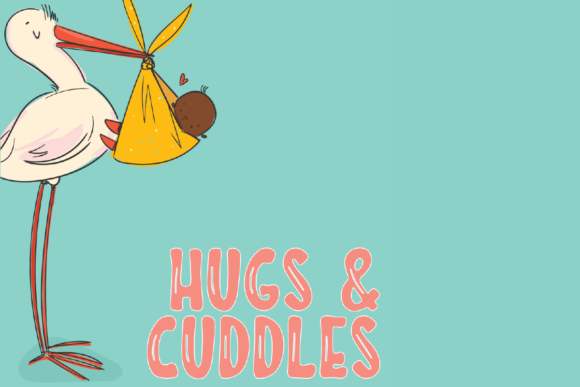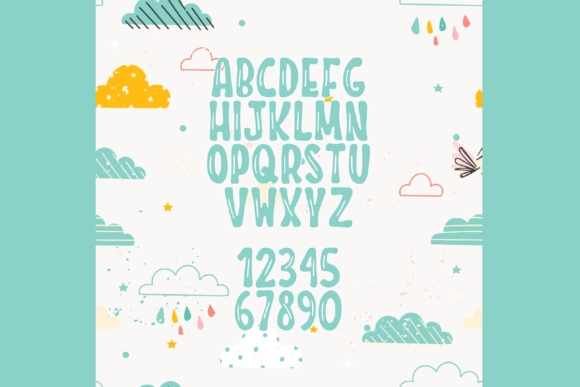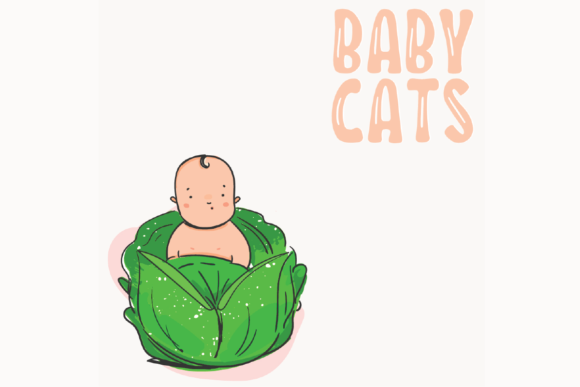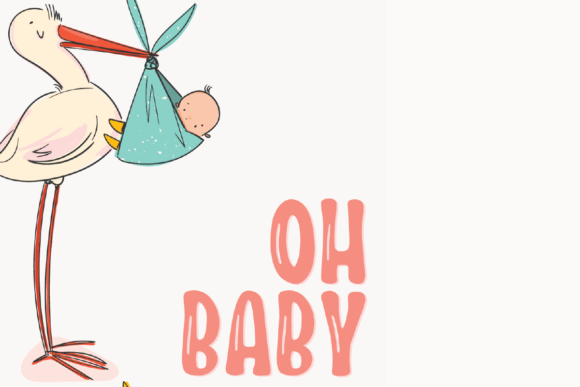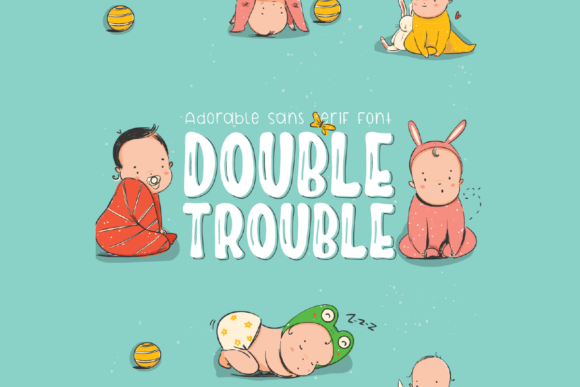
Introducing Double Trouble Font: The Ultimate Choice for Playful Designs
Are you tired of using the same old fonts for your designs? Look no further! Double Trouble Font is here to add a touch of playfulness and fun to your creations. This cool and playful display font is perfect for cartoon-related designs, children’s games, and any project that requires a lovely touch.
What Makes Double Trouble Font So Special?
Double Trouble Font is a unique and eye-catching font that is sure to grab attention. Its playful and fun design makes it perfect for a variety of projects, from children’s books to game designs, and even social media graphics. The font’s distinctive style is characterized by its bold lines, rounded edges, and whimsical feel.
Perfect for Cartoon-Related Designs
If you’re working on a cartoon-related project, Double Trouble Font is an excellent choice. The font’s playful and fun design perfectly captures the spirit of cartoons, making it ideal for:
- Cartoon character designs
- Animated movies and TV shows
- Comic books and graphic novels
- Cartoon-style posters and flyers
Great for Children’s Games and Activities
Double Trouble Font is also perfect for children’s games and activities. The font’s fun and playful design will appeal to kids and make your project stand out. Use it for:
- Children’s book titles and headings
- Game titles and instructions
- Activity sheets and worksheets
- Kids’ party invitations and decorations
Adding a Lovely Touch to Your Designs
Double Trouble Font is not just limited to cartoon-related designs and children’s games. The font’s playful and fun design can add a lovely touch to any project, including:
- Blog headings and titles
- Website headers and footers
Key Features of Double Trouble Font
Here are some key features of Double Trouble Font:
- Playful and fun design
- Bold lines and rounded edges
- Whimsical feel
- Perfect for cartoon-related designs and children’s games
- Great for adding a lovely touch to any project
- Use it as a display font for headings and titles
- Pair it with other fonts for a unique look
- Experiment with different colors and textures
- Use it to add a playful touch to your designs
Double Trouble Font is a cool and playful display font that is perfect for adding a fun and playful touch to your designs. Its unique and eye-catching design makes it ideal for cartoon-related designs, children’s games, and any project that requires a lovely touch. With its bold lines, rounded edges, and whimsical feel, Double Trouble Font is sure to grab attention and make your project stand out.